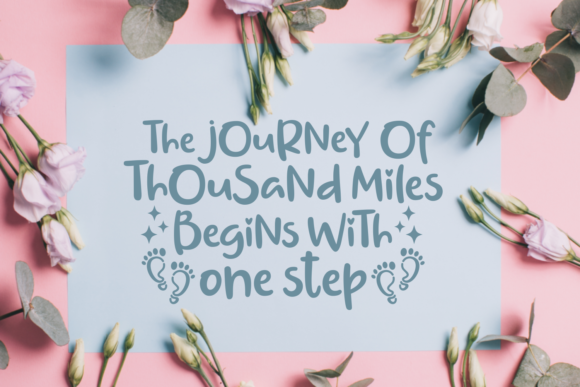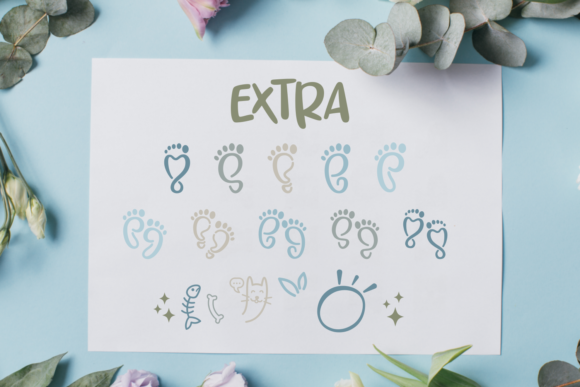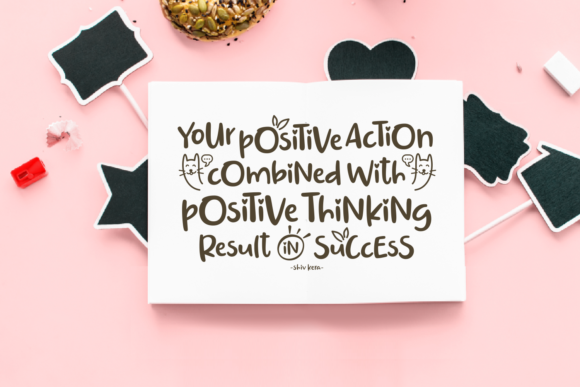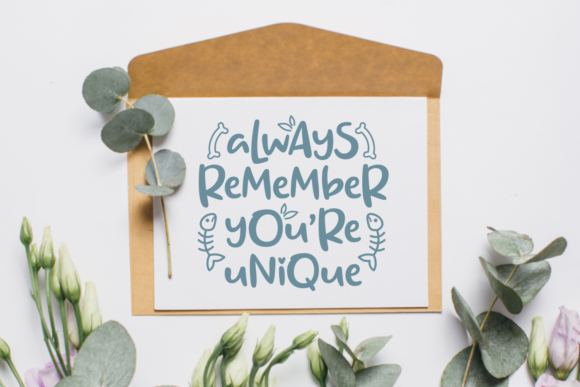
Introducing Daily Walker Font: The Cute and Adorable Typeface Inspired by a Baby’s First Steps
As a designer or crafter, you’re always on the lookout for unique and creative ways to make your projects stand out. One way to add a personal touch to your designs is by using a custom font that reflects the theme or tone of your project. If you’re looking for a font that’s cute, adorable, and inspiring, look no further than Daily Walker Font. Inspired by a baby’s first steps, Daily Walker is a charming typeface that’s sure to bring a smile to anyone’s face.
The Story Behind Daily Walker Font
Daily Walker Font is a typeface that’s all about celebrating the joy and wonder of a baby’s first steps. The font’s creator was inspired by the excitement and pride that comes with watching a little one take their first steps, and they wanted to capture that feeling in a font that would be perfect for designs that require a playful and whimsical touch.
The result is a font that’s both cute and elegant, with a unique character that’s sure to make your designs stand out. Whether you’re working on a project for a children’s brand, a nursery decor, or simply want to add a personal touch to your craft projects, Daily Walker Font is the perfect choice.
What Makes Daily Walker Font So Special?
So, what sets Daily Walker Font apart from other fonts out there? Here are just a few things that make it so special:
- Cute and Adorable: Daily Walker Font is a truly adorable font that’s sure to bring a smile to anyone’s face. Its playful and whimsical design makes it perfect for projects that require a lighthearted touch.
- Unique Character: Daily Walker Font has a unique character that’s all its own. Its elegant and refined design makes it perfect for projects that require a touch of sophistication.
- Versatile: Daily Walker Font is a versatile font that can be used for a wide range of projects, from children’s branding to nursery decor to craft projects.
- Easy to Read: Despite its playful design, Daily Walker Font is easy to read and can be used for both headings and body text.
How to Use Daily Walker Font in Your Designs
Daily Walker Font is a versatile font that can be used in a wide range of designs. Here are just a few ideas to get you started:
- Children’s Branding: Daily Walker Font is perfect for children’s branding, including logos, packaging, and marketing materials.
- Nursery Decor: Add a personal touch to your nursery decor with Daily Walker Font, perfect for wall art, signs, and other decorative items.
- Craft Projects: Daily Walker Font is a great addition to any craft project, from scrapbooking to card making to DIY home decor.
- Digital Designs: Daily Walker Font can also be used in digital designs, including social media graphics, blog posts, and website headers.
Tips and Tricks for Getting the Most Out of Daily Walker Font
Here are a few tips and tricks for getting the most out of Daily Walker Font:
- Experiment with Different Sizes: Daily Walker Font looks great in a variety of sizes, from large headings to smaller body text.
- Pair with Other Fonts: Daily Walker Font pairs well with other fonts, including bold and sans-serif fonts.
- Use for Headings and Titles: Daily Walker Font is perfect for headings and titles, adding a touch of personality and whimsy to your designs.
In conclusion, Daily Walker Font is a unique and inspiring typeface that’s perfect for designers and crafters looking to add a personal touch to their projects. Its cute and adorable design, unique character, and versatility make it a great addition to any design project. So why not give Daily Walker Font a try and see how it can bring a smile to your face and a touch of personality to your designs?